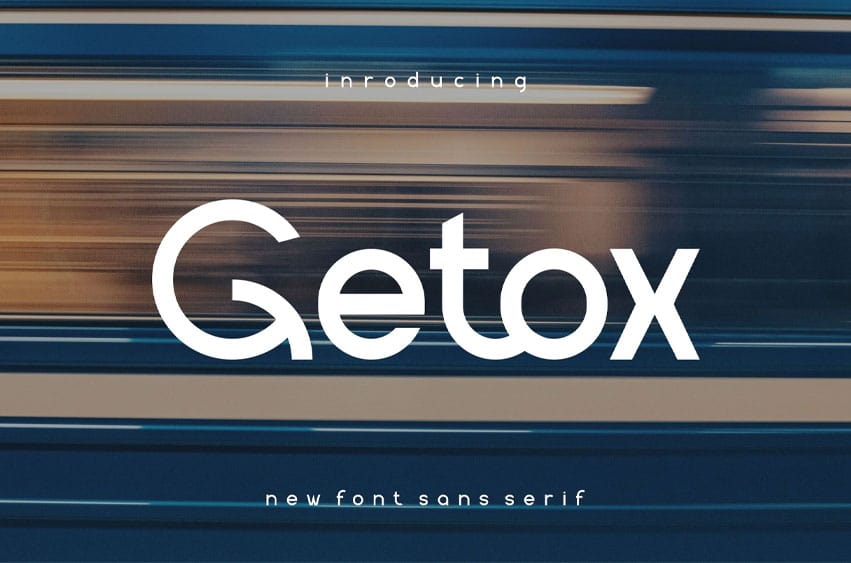
Getox Font Sans Logo Display awesome and authentic display font. It fits in headlines, logos, posters, flyers, invitations, name cards, branding materials, print media, editorial layouts, and many more.